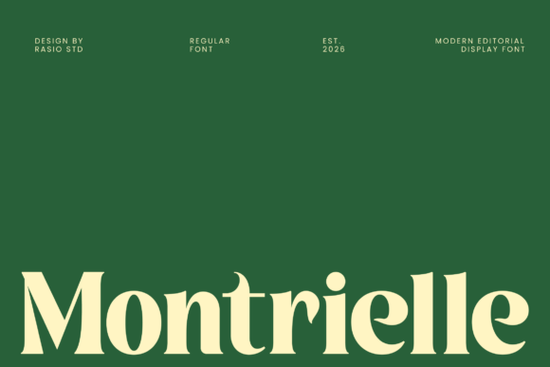
Montrielle Font is a versatile serif typeface designed for those who want to add a touch of elegance and personality to their designs. Whether you're working on a logo, a magazine layout, or social media graphics, this font offers a unique balance between modern aesthetics and classic typography. Its expressive character forms make it ideal for projects that require a strong visual identity.
If you're looking for a font that stands out without being overwhelming, Montrielle could be the perfect fit. It’s especially useful for designers who want to create a memorable brand presence. The font's decorative details add depth to any composition, making it suitable for both digital and print applications.
What Makes Montrielle Stand Out?
Montrielle combines contemporary editorial styling with expressive character details, giving it a distinctive look that can elevate any design. Its structure remains clean and readable, which makes it adaptable for different uses. This balance between style and functionality is what sets it apart from other serif fonts.
The font’s versatility allows it to work well in various contexts. For example, it can be used for headlines in magazines, titles for books, or even as a key element in packaging design. Its ability to convey both sophistication and creativity makes it a go-to choice for many designers.
Best Uses for Montrielle Font
Montrielle is particularly effective in situations where a bold and individualistic typographic voice is needed. Here are some common applications:
- Headlines and Titles: Use it for magazine covers, book titles, or website headers to grab attention.
- Branding and Logos: Its expressive details help create a unique brand identity that stands out.
- Promotional Materials: Ideal for invitations, product presentations, and social media graphics.
- Editorial Design: Adds a refined touch to layouts that require a high level of visual appeal.
Whether you're designing for a small business or working on a personal project, Montrielle offers the flexibility needed to meet different creative needs.
How Does Montrielle Compare to Other Serif Fonts?
If you're familiar with other serif fonts like Noisera, Talento, or Salega, you might find Montrielle to have a more expressive and decorative style. While these fonts also offer elegance, Montrielle brings a more dynamic feel that can be especially useful for statement-making compositions.
For example, Noisera is great for a more traditional look, while Talento adds a softer, more elegant touch. Salega, on the other hand, has a more modern and minimal aesthetic. Montrielle sits somewhere in between, offering a blend of tradition and innovation that can suit a wide range of design styles.
Each of these fonts has its own strengths, so choosing the right one depends on the specific needs of your project. If you're looking for something that combines expressiveness with readability, Montrielle is worth considering.
When selecting a font, it's important to consider how it will fit into your overall design strategy. Montrielle is a strong choice if you're looking for a font that can add personality and depth to your work without compromising on clarity or professionalism.
Before finalizing your design, make sure to test the font in different sizes and contexts to ensure it works well for your intended use. This will help you get the most out of its unique characteristics.
- Do you need a font that stands out but remains readable?